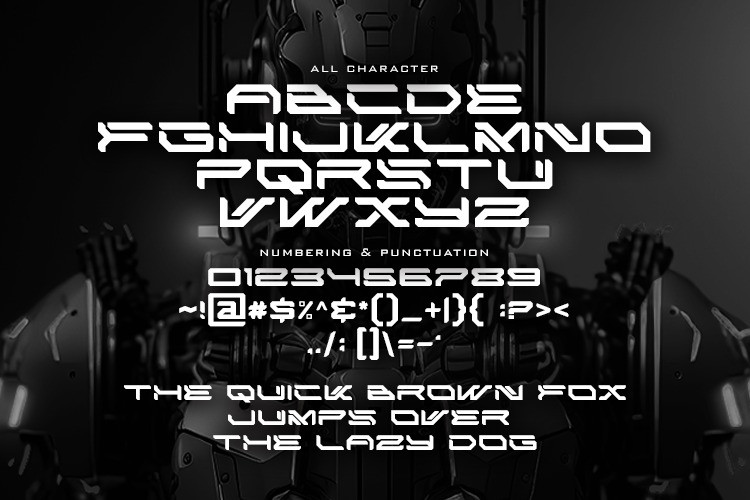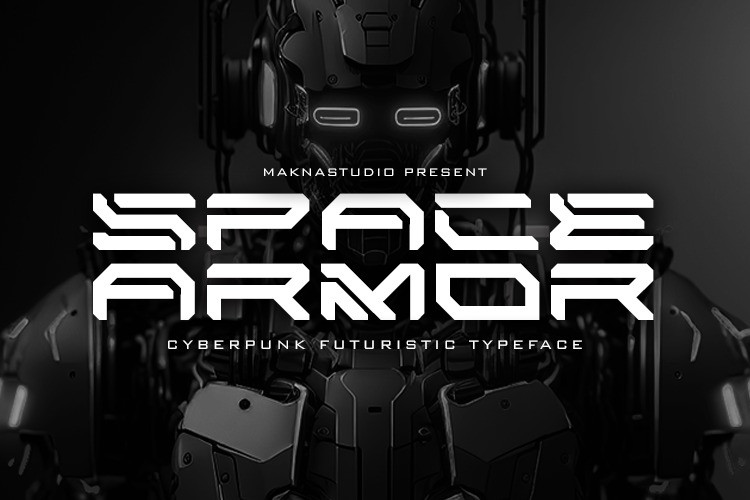
Space Armor Font
Space Armor Display Font  is a bold and edgy typeface with a distinct cyberpunk, futuristic aesthetic. This font embodies the high-tech and innovative spirit of space exploration and military technology. Its sleek lines and sharp angles give a modern, high-tech feel, while its blocky, heavy structure conveys strength and power. The font is perfect for creating eye-catching headlines, logos, and titles for science fiction and futuristic projects, as well as for design projects related to the military and high-tech industries. The “Space Armor Font” is a versatile font that can be used for a variety of purposes, from advertising and packaging to video game design and movie titles. Whether you want to give your projects a cutting-edge look or evoke a sense of technology and strength, “Space Armor Font” is the perfect font for you!